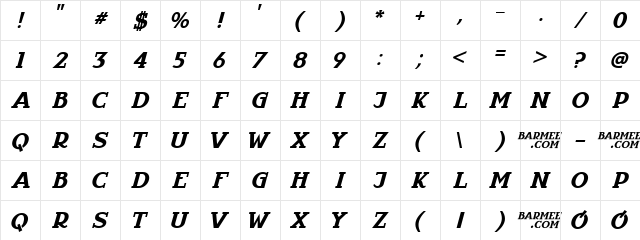
InfantylItalic Regular
Design Context for InfantylItalic
InfantylItalic is a composed and adaptable typeface that performs quietly and consistently across a wide range of design contexts. The slanted form adds forward momentum and visual energy.
Pro Tip: Use InfantylItalic for emphasis, pull quotes, and subheadings where its slanted energy can add rhythm to the layout.